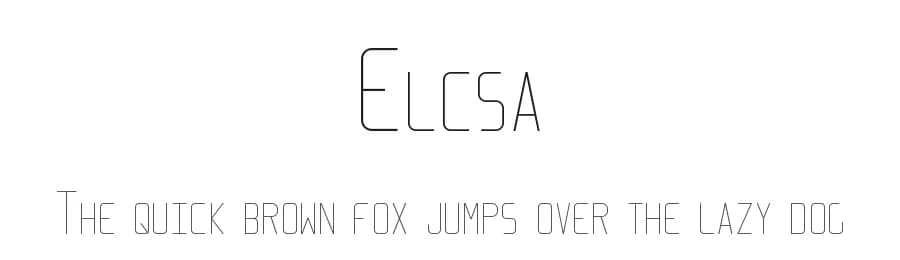
About Elcsa Font
Elcsa is a sans-serif font designed by Asclê de Oliveira. It includes 236 glyphs, a thin weight, TTF (TrueType) format, and 209 languages. Elcsa is free to download; check the license details on this page before commercial use. Sans-serif fonts like Elcsa work best for clean body text, user interfaces, branding, and modern layouts.
- Ultra-light, Clean, Modern, Basic
Elcsa Font is a versatile sans-serif font that works for both headings and body text. Pair it with a contrasting serif or slab serif font to add visual interest and a clear distinction between titles and body copy.